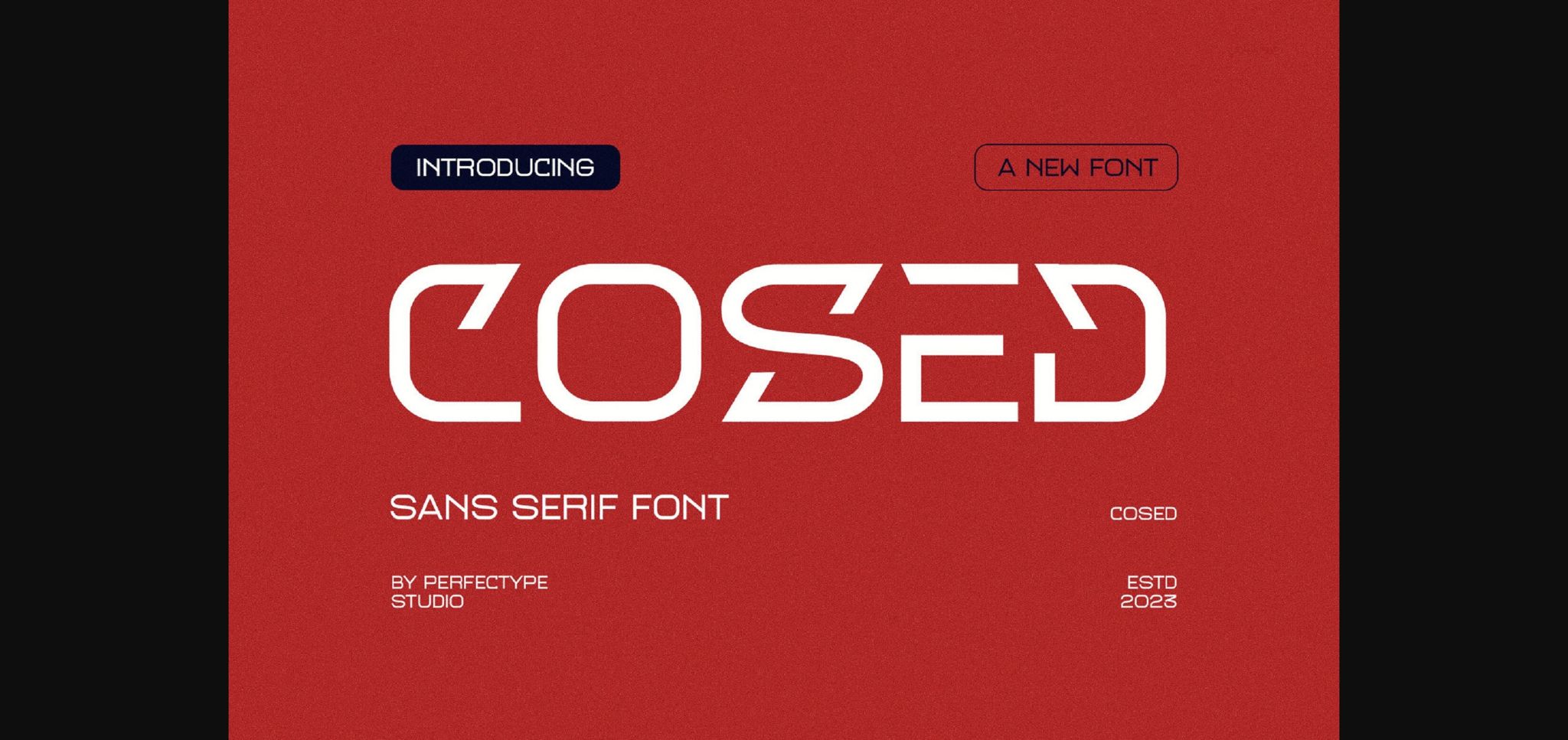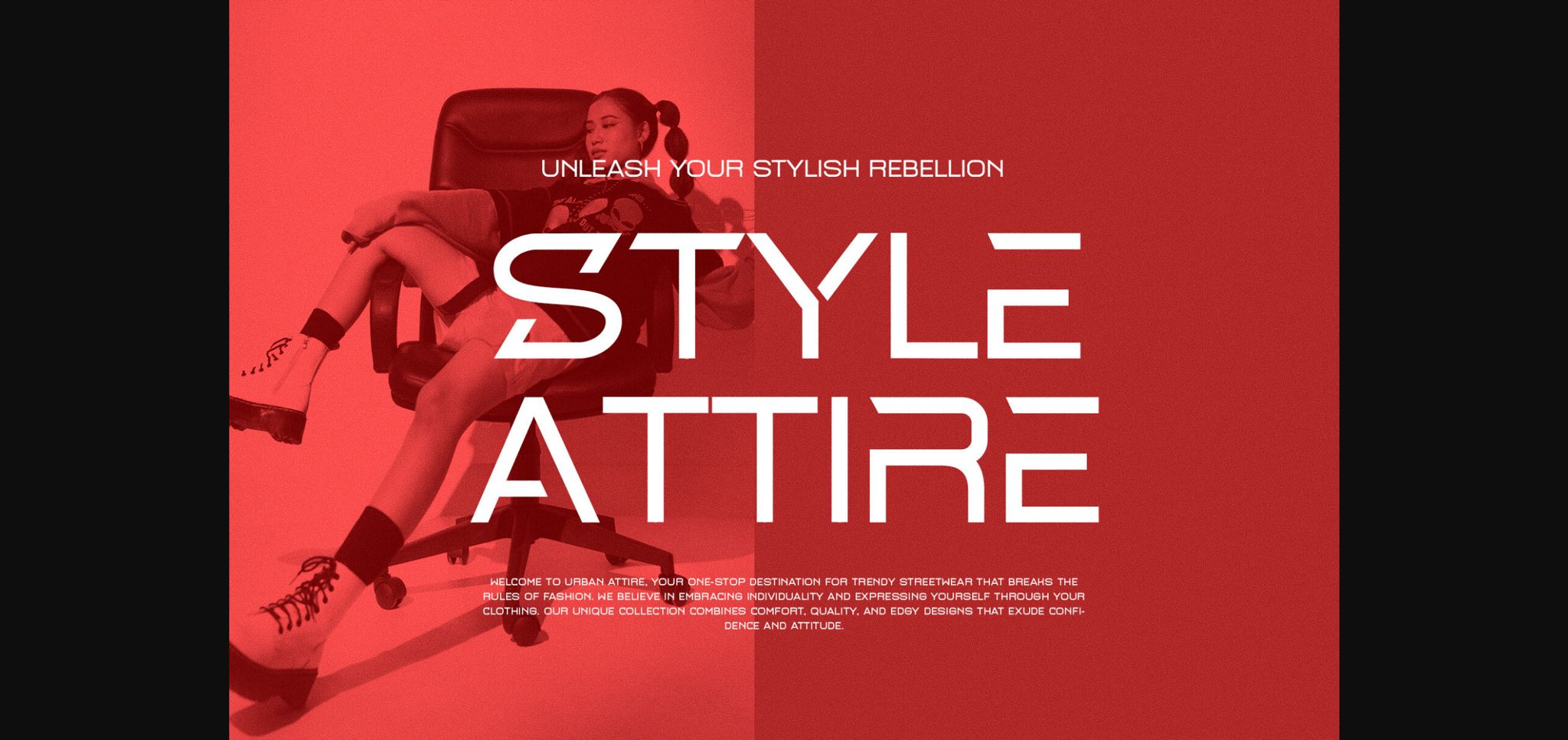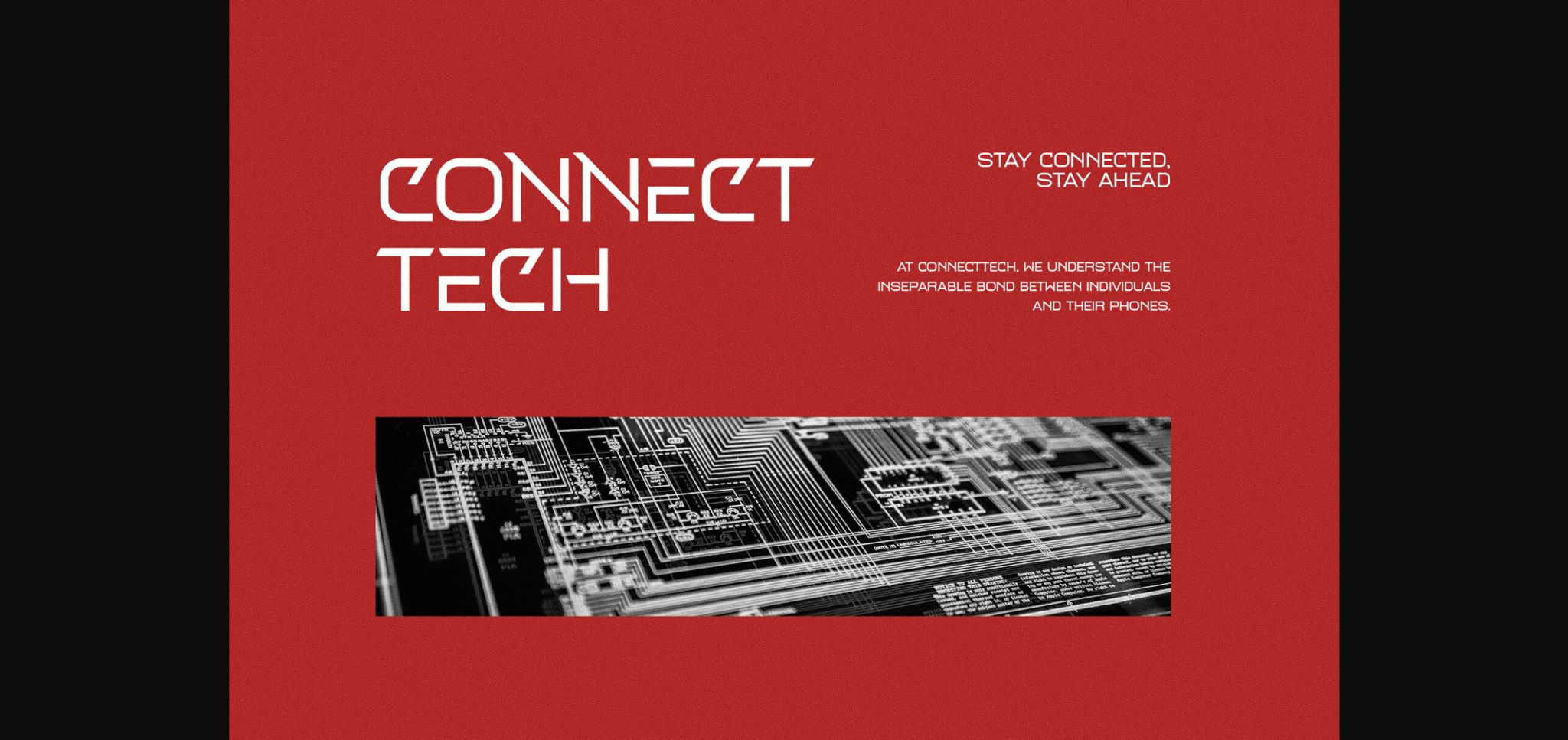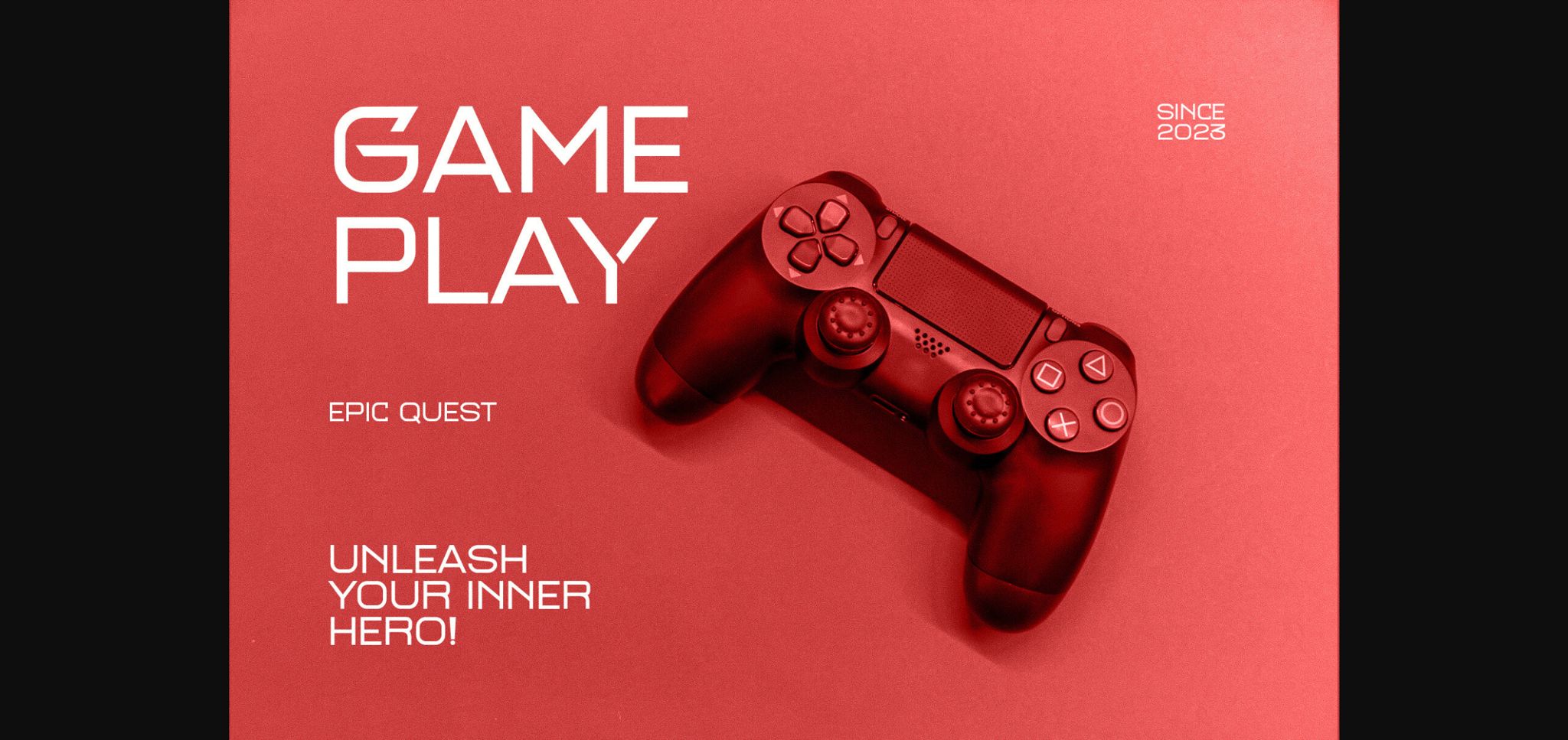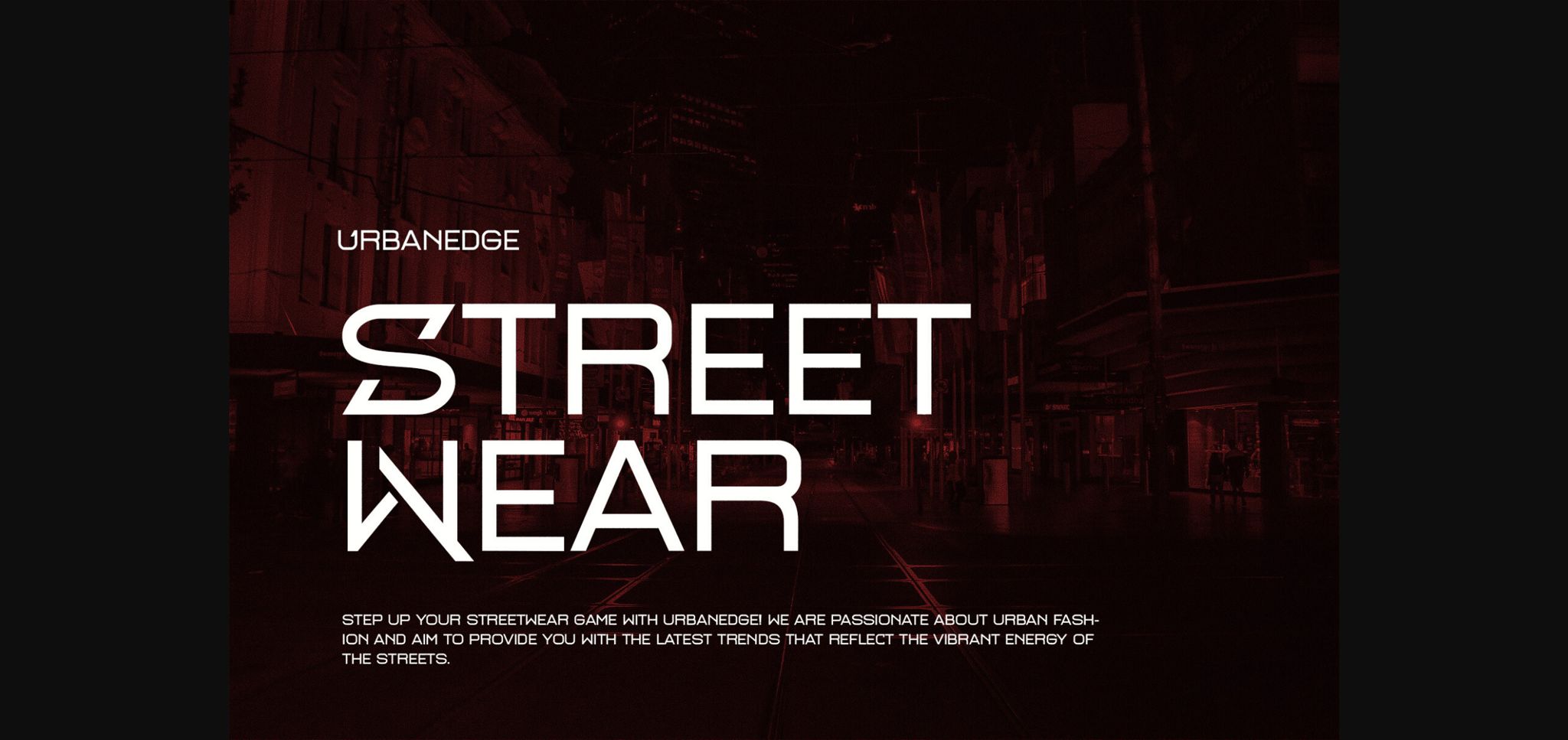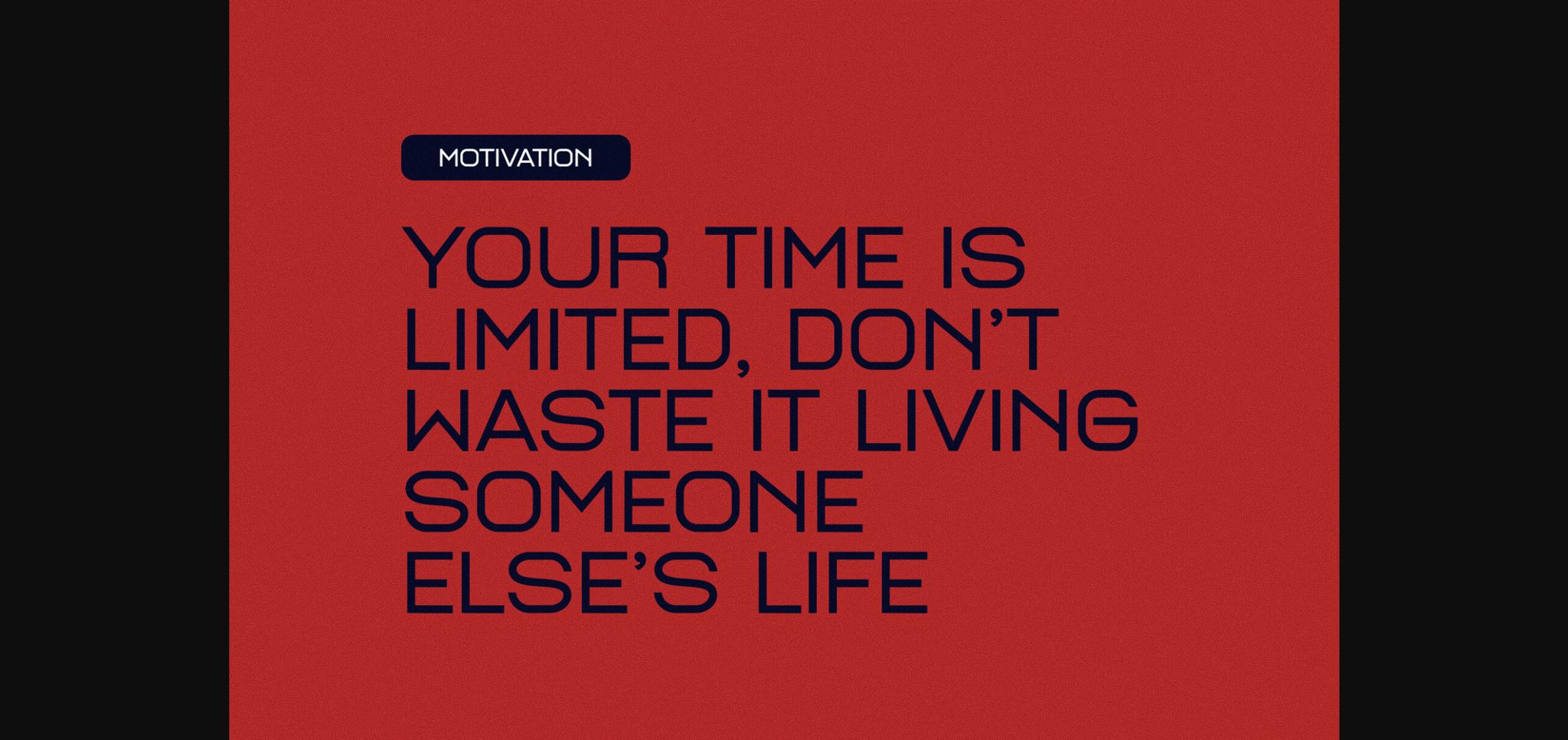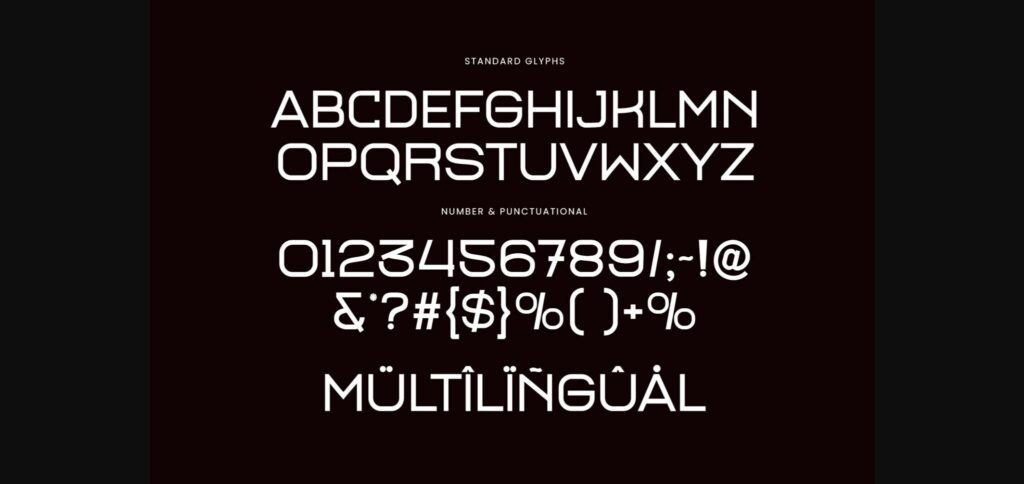
Cosed Font
About Cosed Font
Candle Modern Tech Futuristic Sans Serif.
This typeface encapsulates a rhythm that is symmetrical and balanced due to a unique mix of different sources of inspiration. Proportions are precisely adjusted with subtle contours and subtle contrasts. These shapes give the font an attractive look without compromising on elegance and minimalism, ensuring that any glyph will work well for any graphic design purpose such as brochures, videos, advertising branding, logos, magazines, layout designs, posters, post templates, games and others.